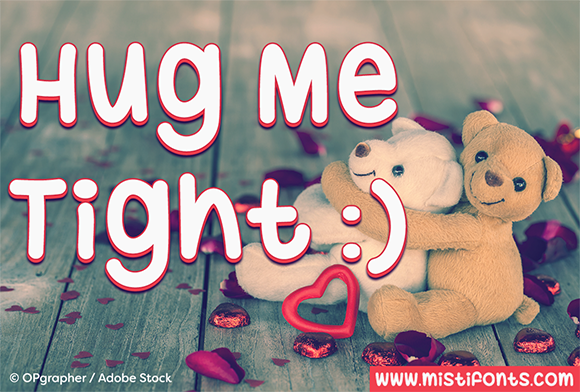
Journey into the realm of heartwarming expressions with Hug Me Tight Font, a remarkable script font crafted by the ingenious Misti. This font is not merely a collection of letters; it's an embodiment of affection, intimacy, and boundless creativity.
Immerse yourself in the world of Hug Me Tight, where each character dances across the screen like a melody of love. The bold strokes and playful curves evoke a sense of warmth and comfort, making it the perfect choice for projects that demand a touch of tenderness.
Whether you're a seasoned designer seeking to add a personal touch to your work or a passionate crafter yearning for a font that speaks to the heart, Hug Me Tight is your perfect companion. Its versatility knows no bounds, adapting seamlessly to a multitude of projects, from heartfelt greeting cards and enchanting invitations to eye-catching posters and captivating social media posts.
Picture this: a greeting card adorned with the Hug Me Tight Font, its letters like gentle whispers conveying heartfelt sentiments. Or envision a poster for a charity event, the words "Embrace the Love" emblazoned in Hug Me Tight, radiating warmth and compassion.
With Hug Me Tight Font, your creations will transcend the ordinary, captivating the hearts of your audience. Its bold presence demands attention, while its charming curves invite connection, creating a lasting impression that lingers in the memory.
So, embrace the magic of Hug Me Tight Font, and let your designs overflow with love, laughter, and boundless creativity. Allow your imagination to soar, knowing that every stroke of this font carries the essence of heartfelt expression.